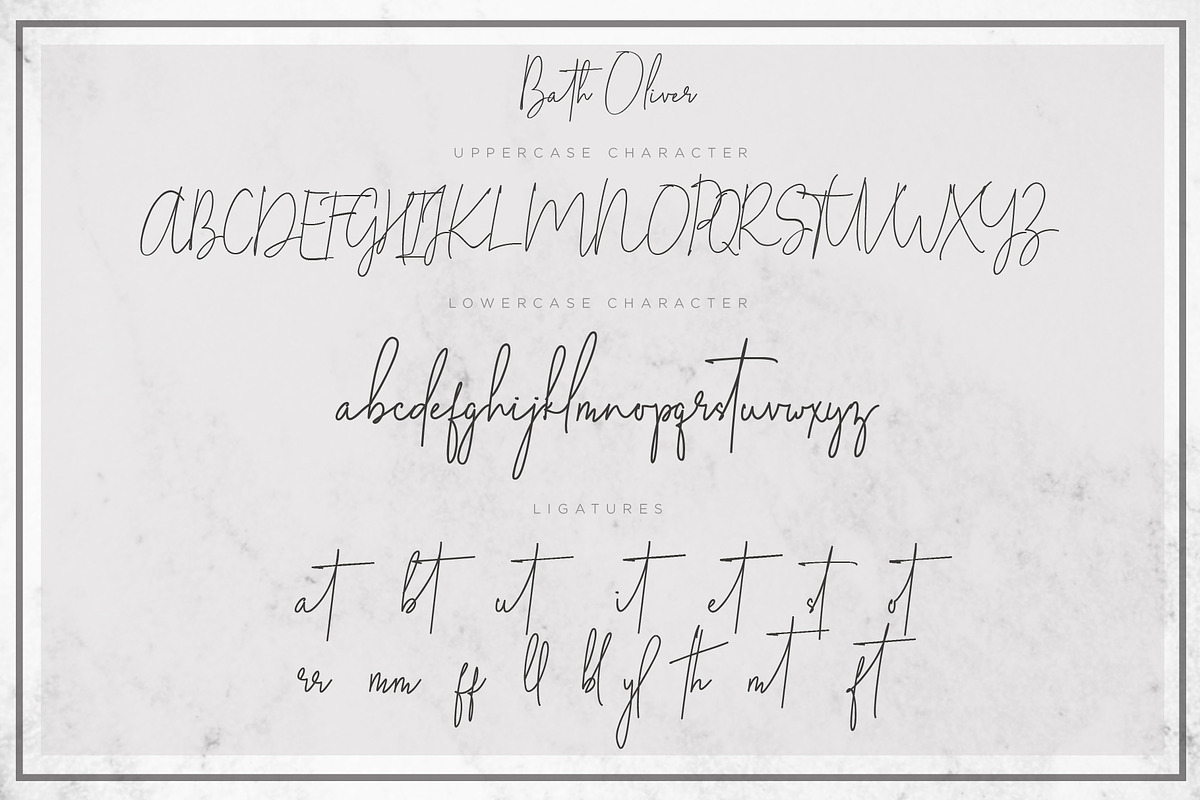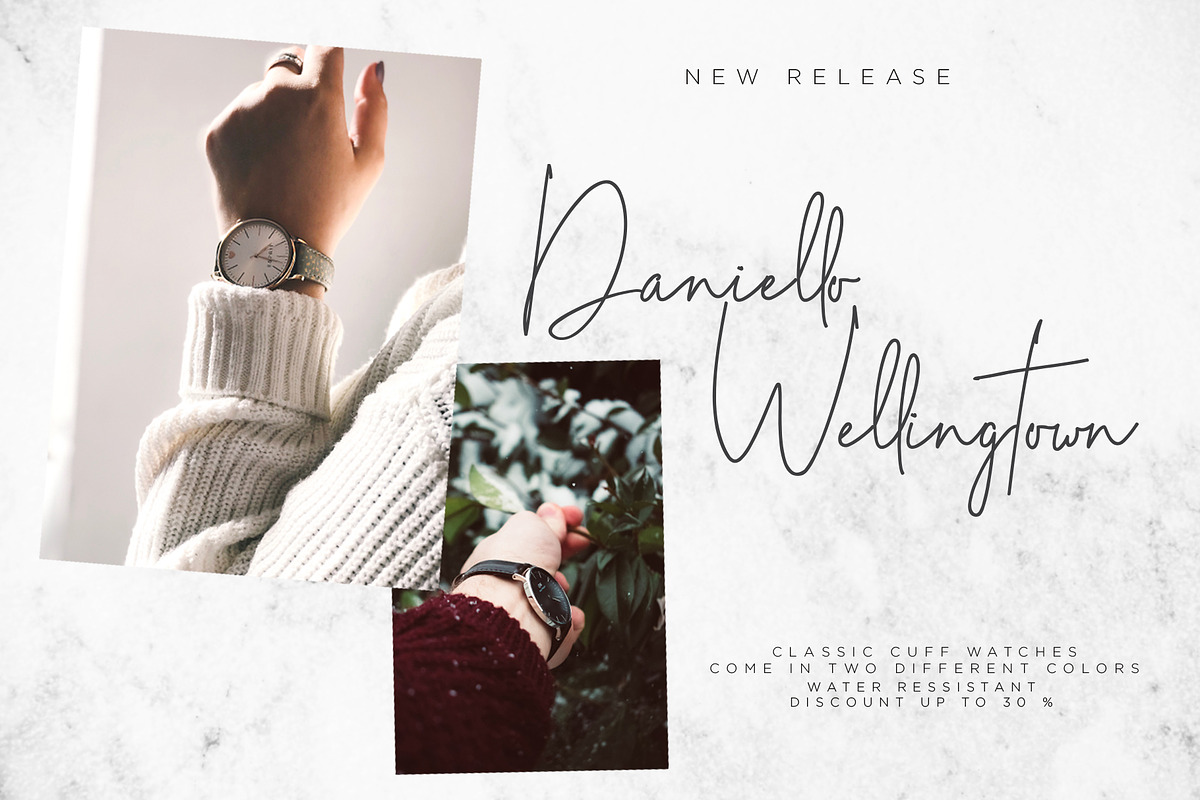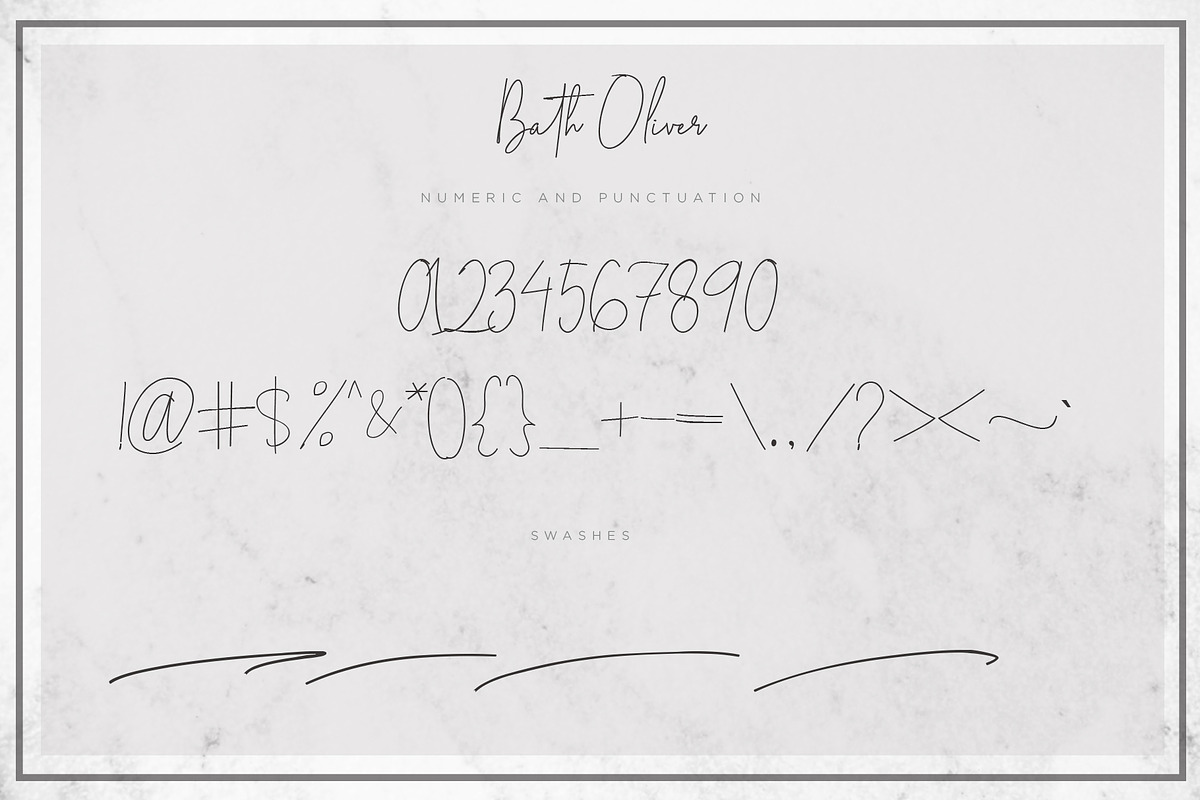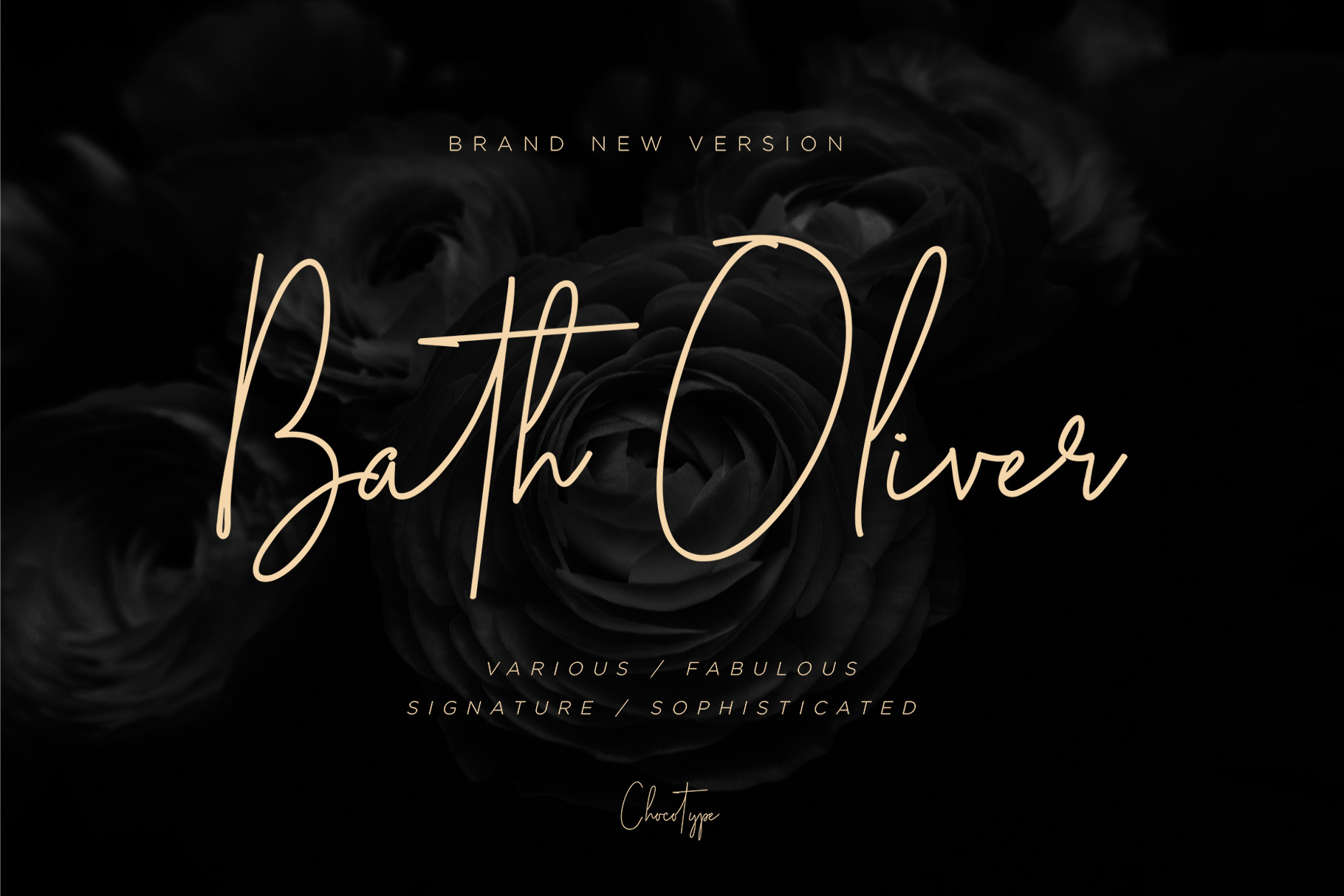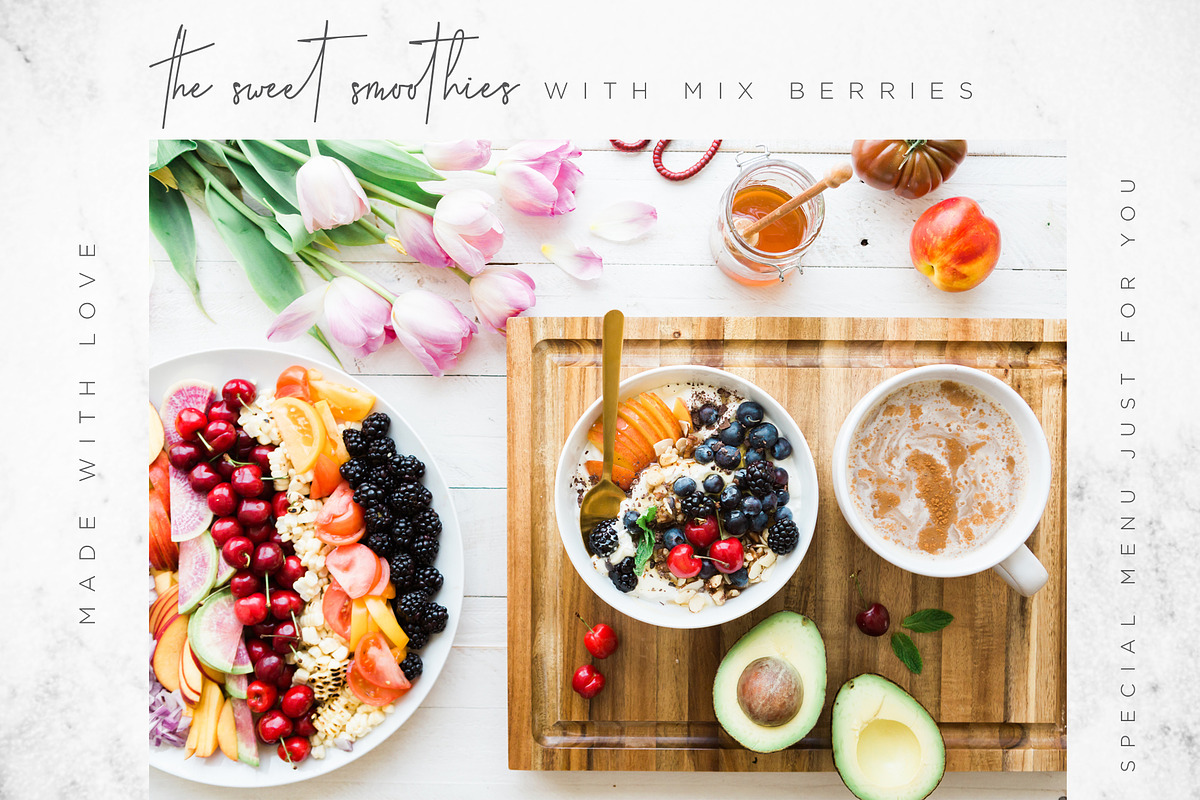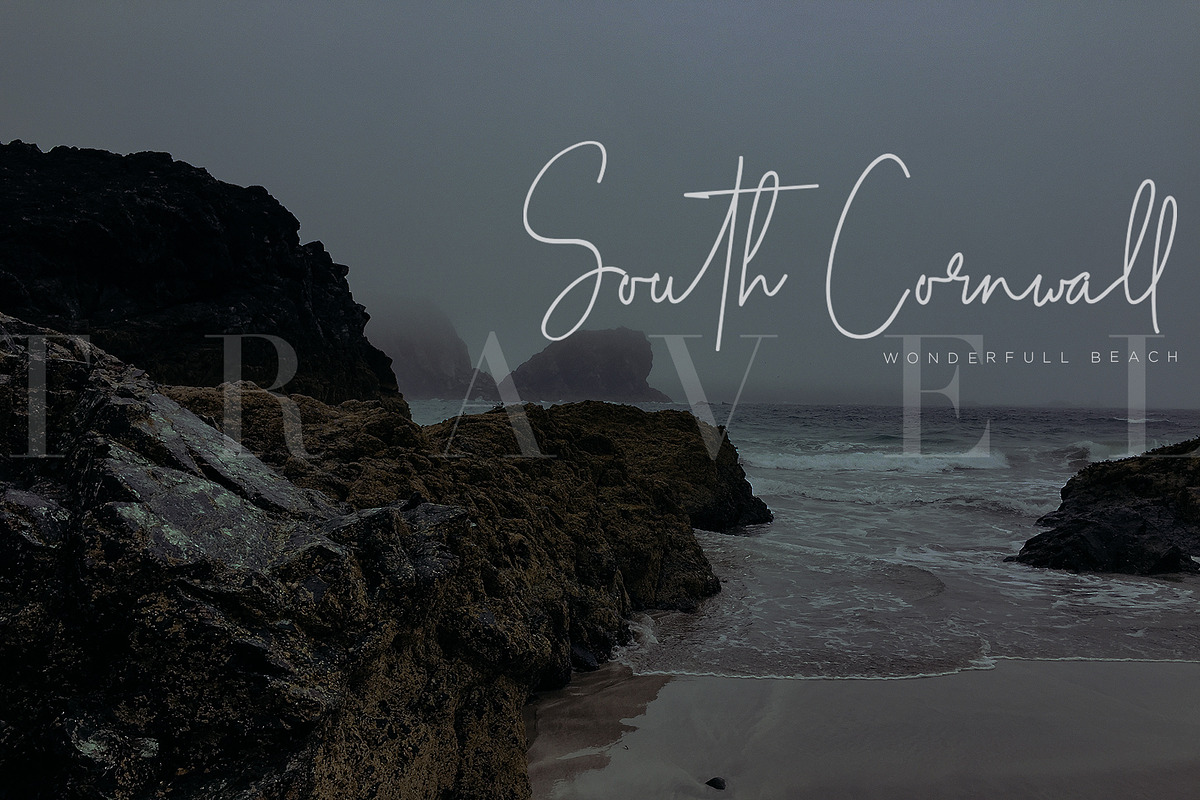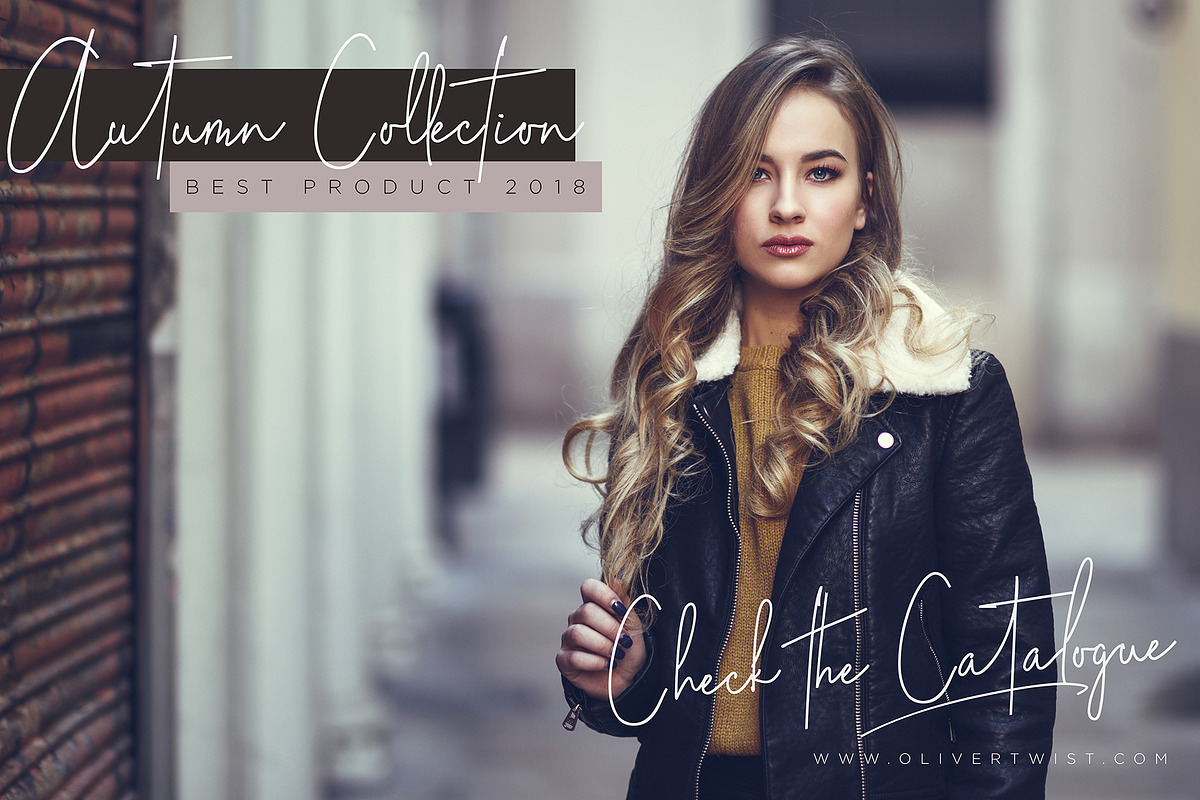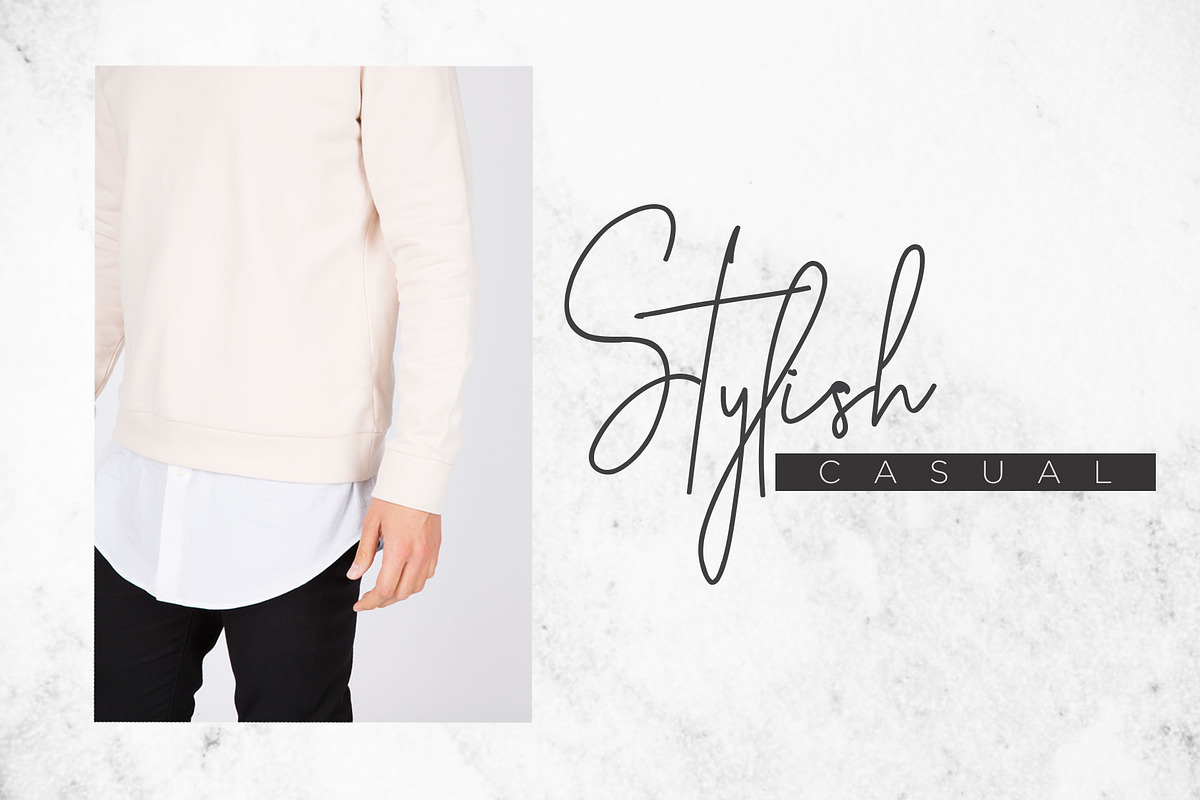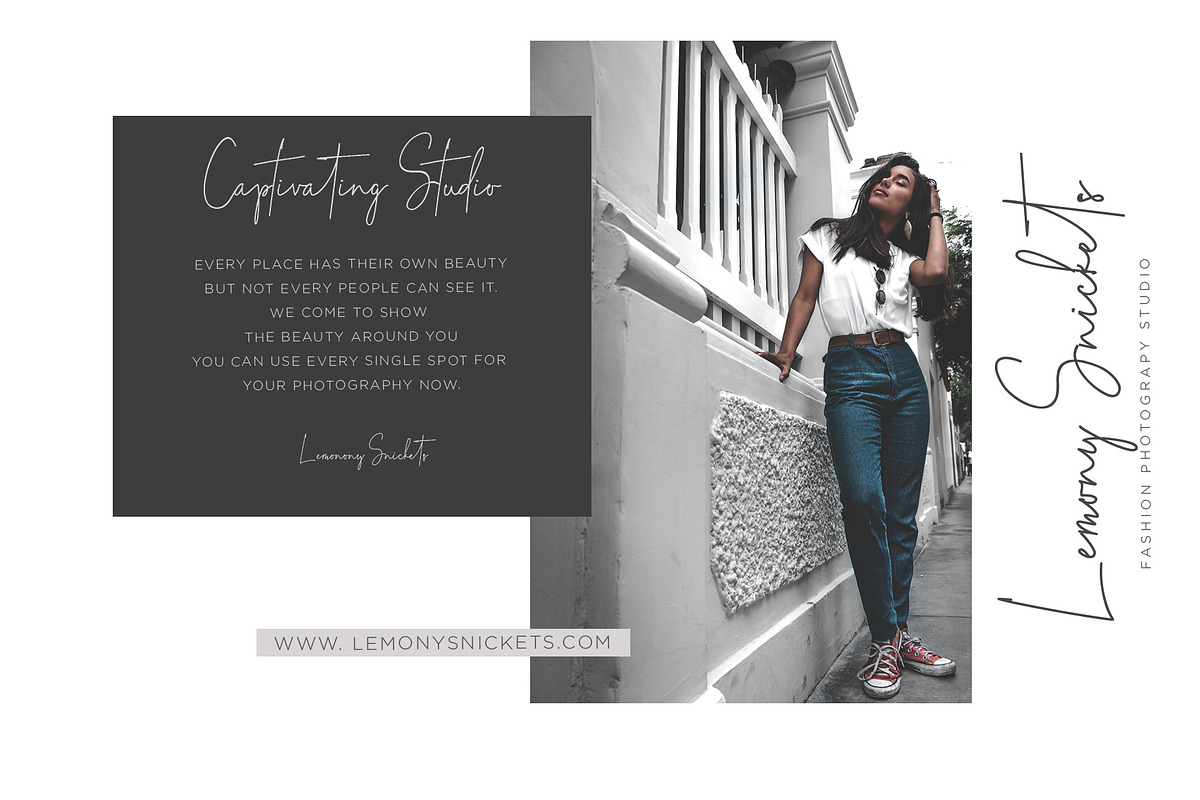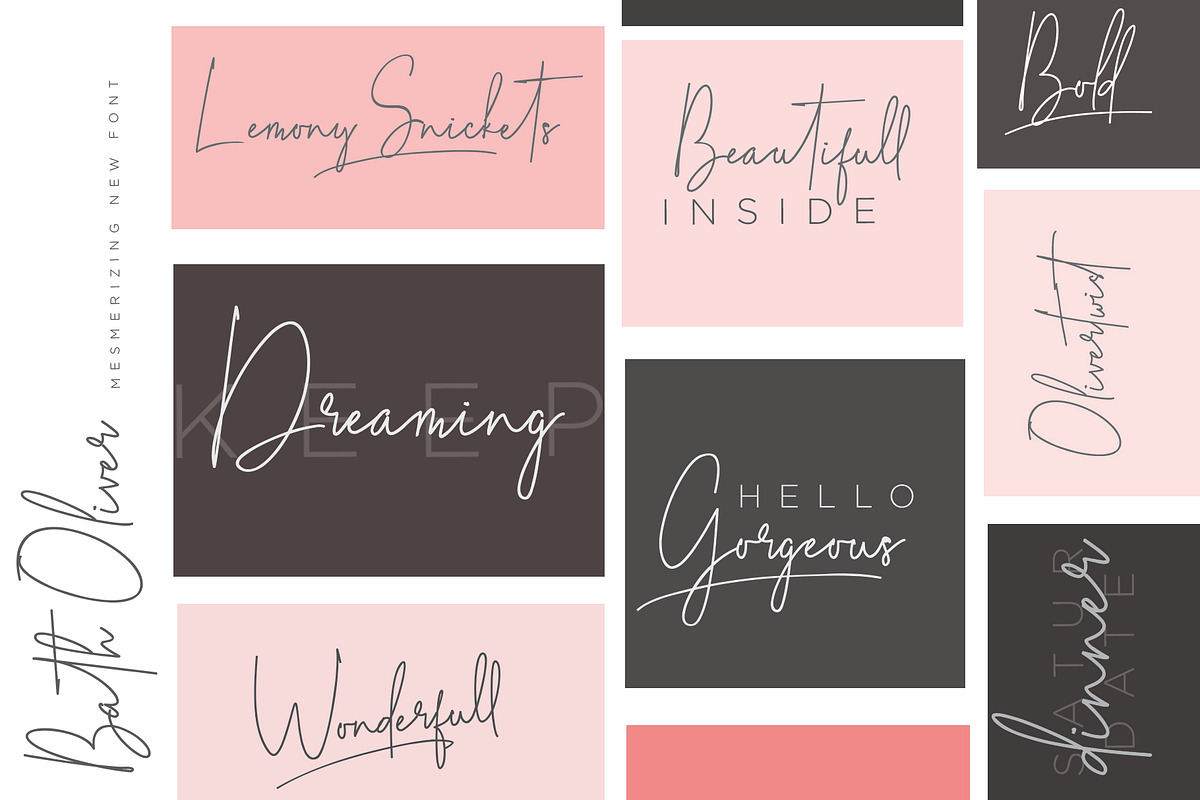
Slip into something more sophisticated with "Bath Oliver" script font :)
Bath Oliver includes full set of gorgeous uppercase and lowercase letters, numerals, a range of punctuation , ligatures and swashes giving realistic hand-lettered style.
With built in opentype features, this script comes to life as if you are writing it yourself.